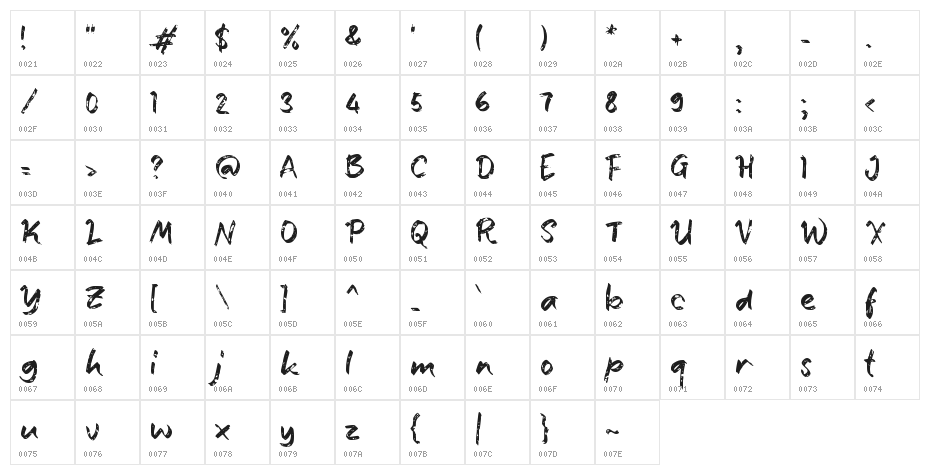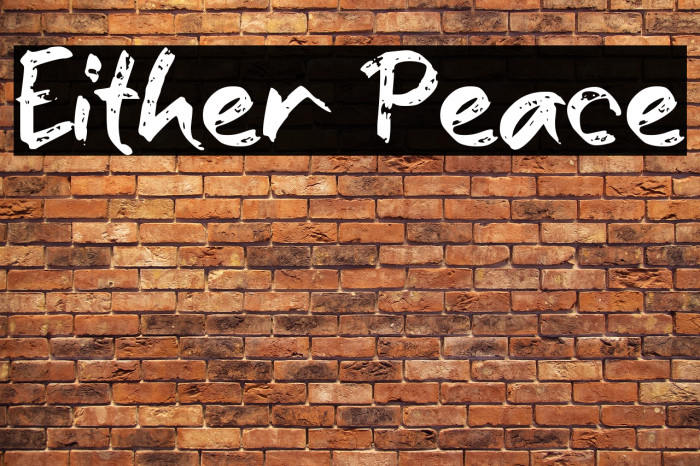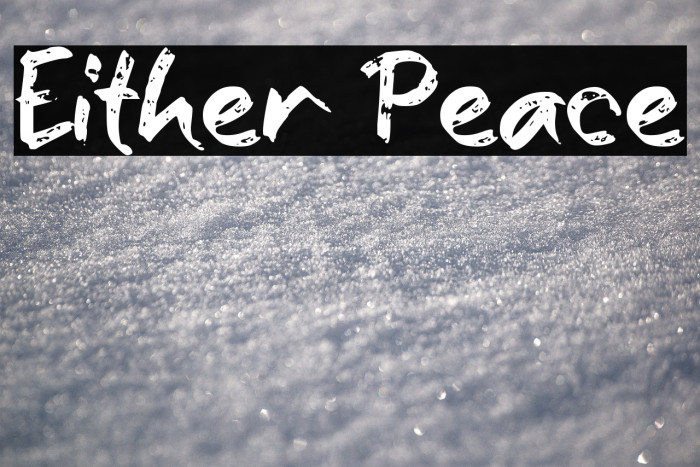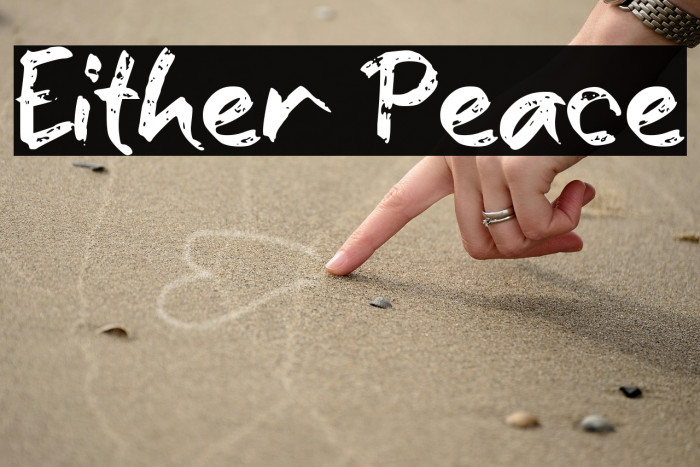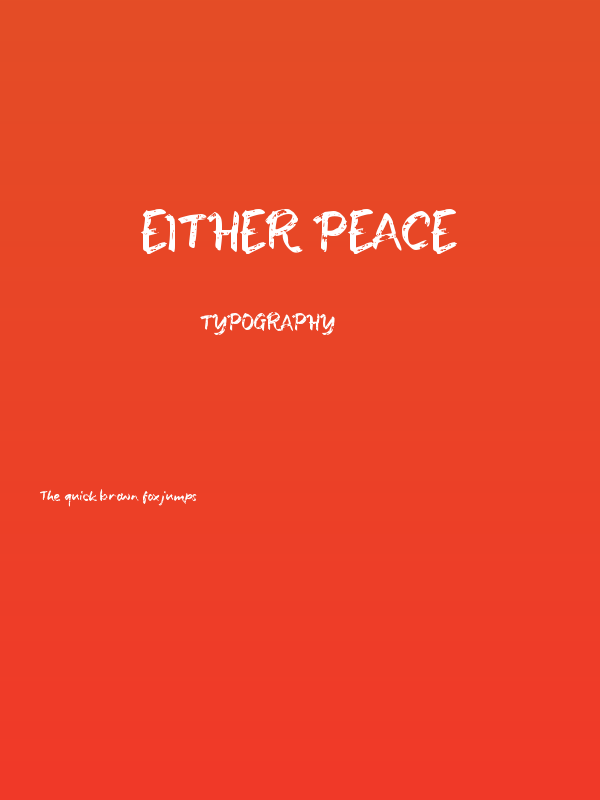
Either Peace Font
Either Peace Description
This font features a bold, expressive style with a hand-painted appearance. The characters are irregular and dynamic, with a rough texture that gives a sense of movement and energy. The uppercase and lowercase letters maintain a consistent style, with varying stroke widths that add to the font's lively character. The numbers and special characters are equally bold and textured, making them stand out. This font is ideal for projects that require a strong, artistic touch, such as posters, album covers, or creative branding.
| Proposed Projects | Posters, album covers, creative branding, artistic projects. |